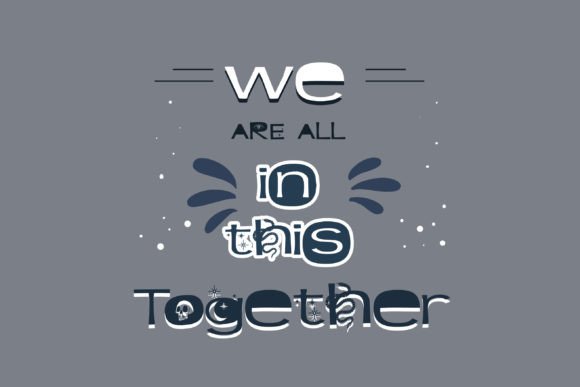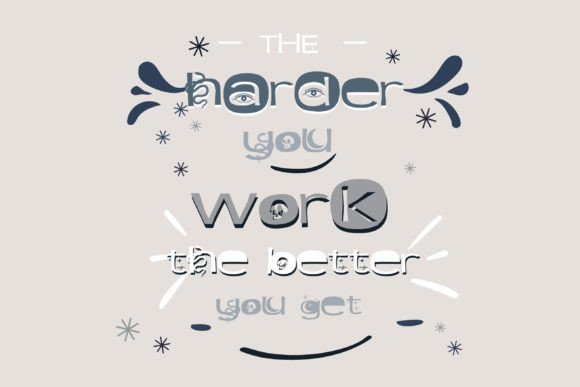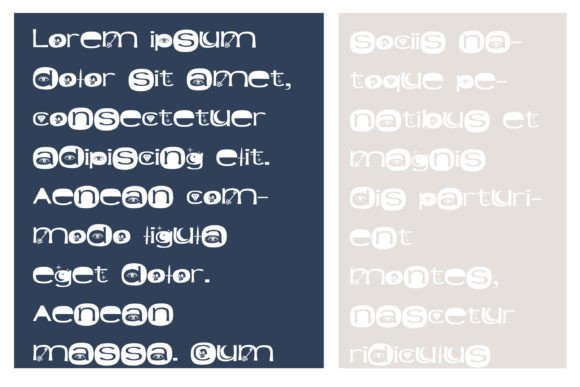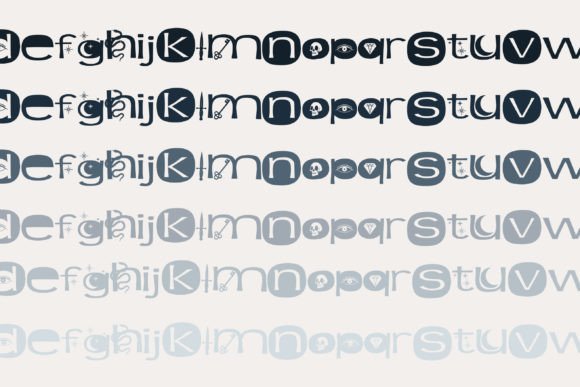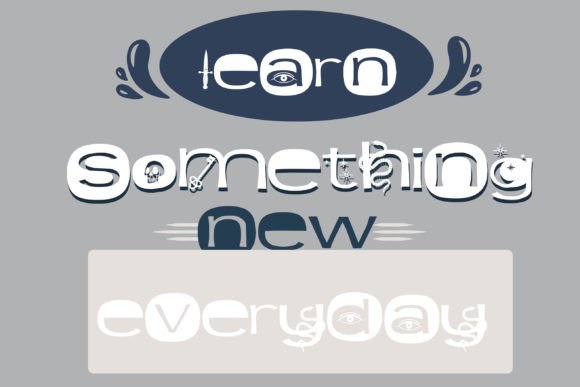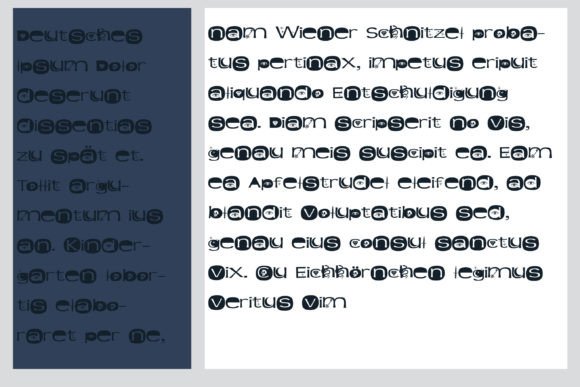
Unleash the Mystique: Exploring the Enchanting World of Black Magic Font
In the realm of typography, few fonts have managed to capture the essence of mystique and allure as effectively as the Black Magic Font. This hand-crafted font, infused with magical elements, has become a favorite among designers and crafters seeking to add a touch of whimsy and enchantment to their projects. In this article, we’ll delve into the world of Black Magic Font, exploring its unique characteristics, uses, and the art of hand-crafted typography.
The Art of Hand-Crafted Typography
A hand-crafted font, by definition, is a font that is designed to mimic the look and feel of handwriting. This style of typography is often characterized by its organic, imperfect, and highly expressive nature. Hand-crafted fonts can range from formal and elegant to informal and playful, making them versatile for various applications. The Black Magic Font, in particular, falls into the category of informal, whimsical fonts that are perfect for adding a dash of personality to creative projects.
What Makes Black Magic Font So Special?
The Black Magic Font stands out from other hand-crafted fonts due to its unique blend of magical and mystical elements. This font is not just a collection of letters and numbers; it’s an experience. Each character is carefully crafted to evoke a sense of wonder and enchantment, making it ideal for projects that require a touch of fantasy and intrigue. Whether you’re designing invitations, greeting cards, or digital content, the Black Magic Font is sure to captivate your audience.
Uses of Black Magic Font
The versatility of the Black Magic Font makes it suitable for a wide range of applications. Here are some popular uses of this enchanting font:
- Invitations and Greeting Cards: Add a touch of magic to your invitations and greeting cards with the Black Magic Font. Its whimsical nature makes it perfect for special occasions like birthdays, weddings, and holidays.
- Digital Content: Use the Black Magic Font to create engaging and mystical digital content, such as social media graphics, blog posts, and email newsletters.
- Branding and Packaging: The Black Magic Font can be used to create unique and memorable brand identities, especially for businesses that operate in the creative, spiritual, or wellness sectors.
- Crafting and DIY Projects: Crafters and DIY enthusiasts can use the Black Magic Font to add a personal touch to their projects, such as handmade cards, scrapbooking, and journaling.
Tips for Using Black Magic Font Effectively
To get the most out of the Black Magic Font, consider the following tips:
- Mix and Match: Combine the Black Magic Font with other fonts to create visual interest and contrast.
- Experiment with Colors: The Black Magic Font looks stunning in a range of colors, from deep blues and purples to metallic silvers and golds.
- Add Texture and Patterns: Incorporate textures and patterns to give your designs a tactile, organic feel.
- Keep it Simple: Don’t overdo it – sometimes, less is more. Use the Black Magic Font sparingly to create a lasting impact.
The Black Magic Font is a true gem in the world of typography. Its unique blend of magical and mystical elements makes it a versatile and captivating choice for designers and crafters. Whether you’re looking to add a touch of whimsy to your projects or create a lasting impression, the Black Magic Font is sure to cast a spell on your audience. So, go ahead and unleash the mystique of the Black Magic Font – your designs will never be the same again!